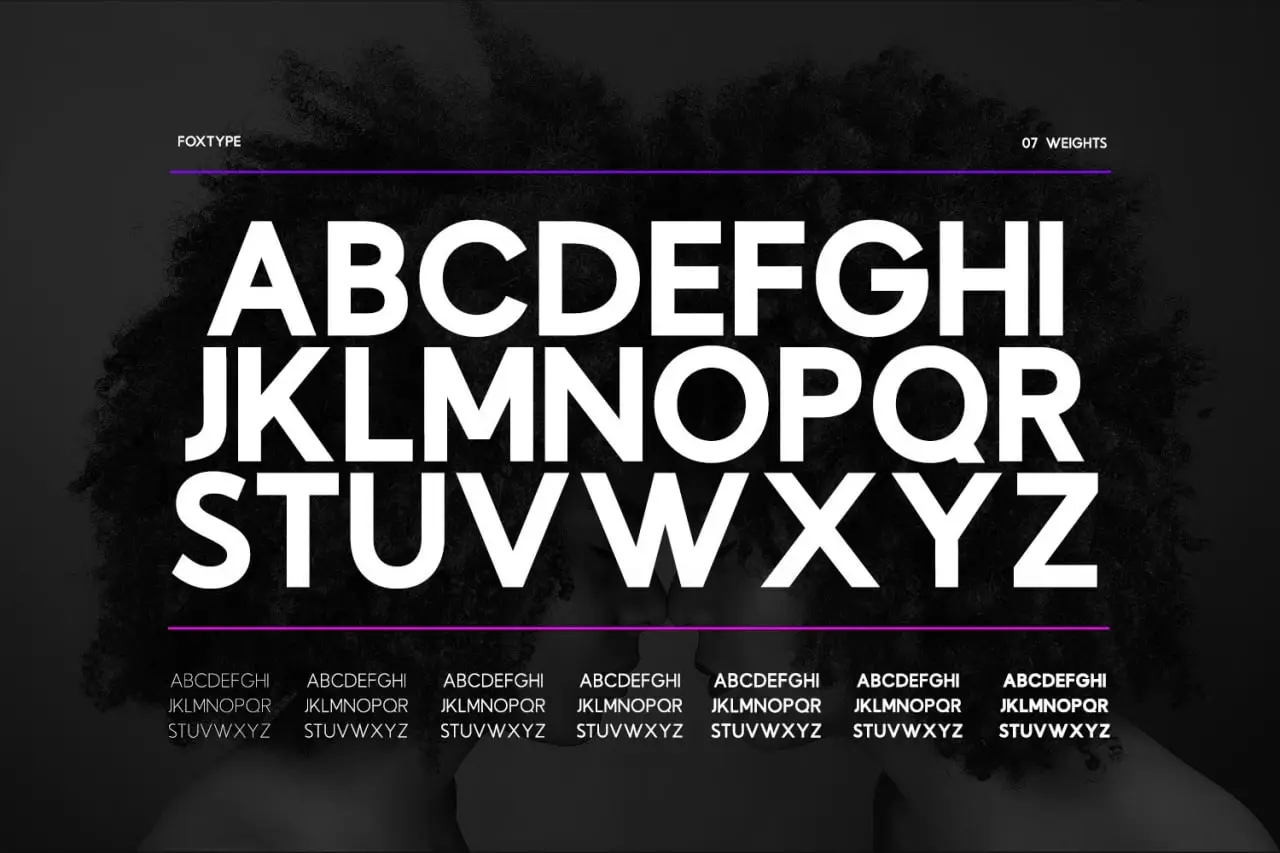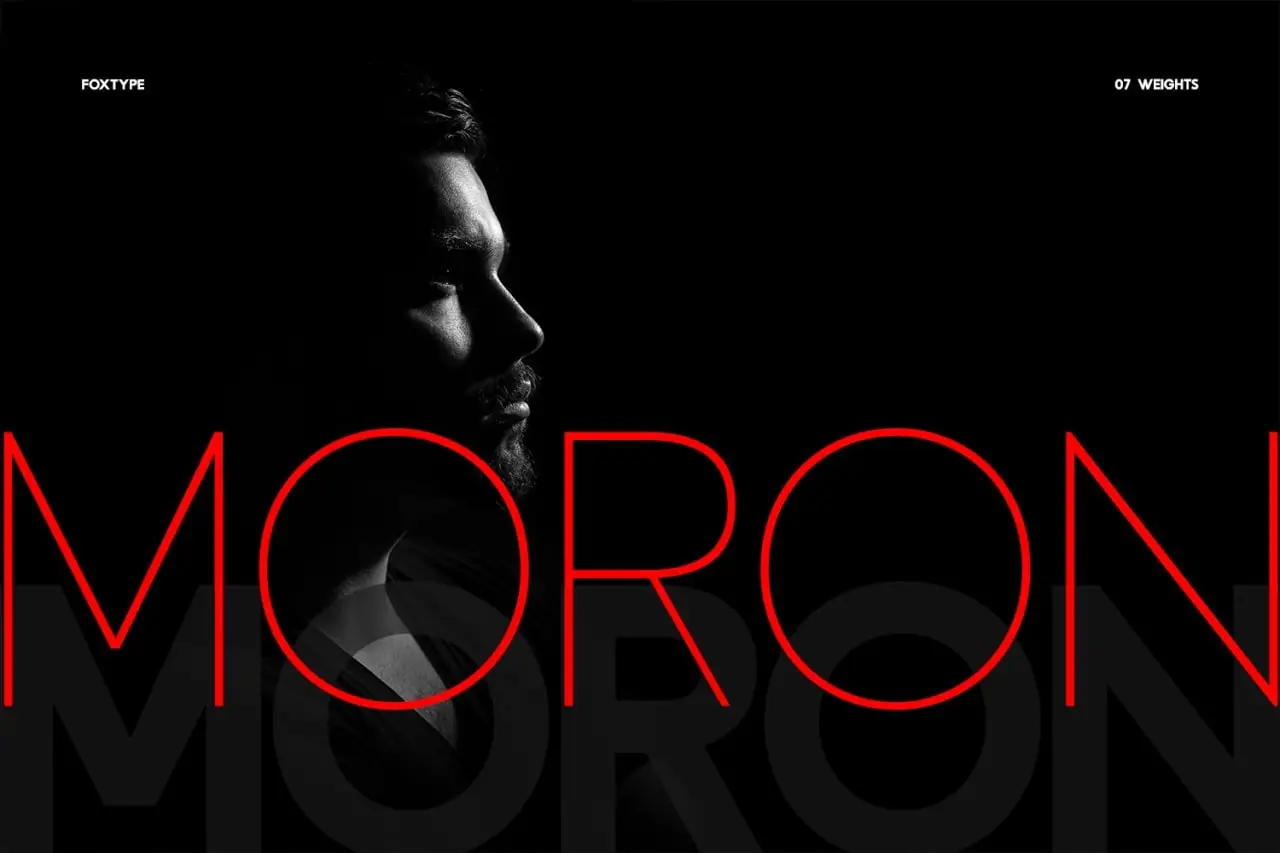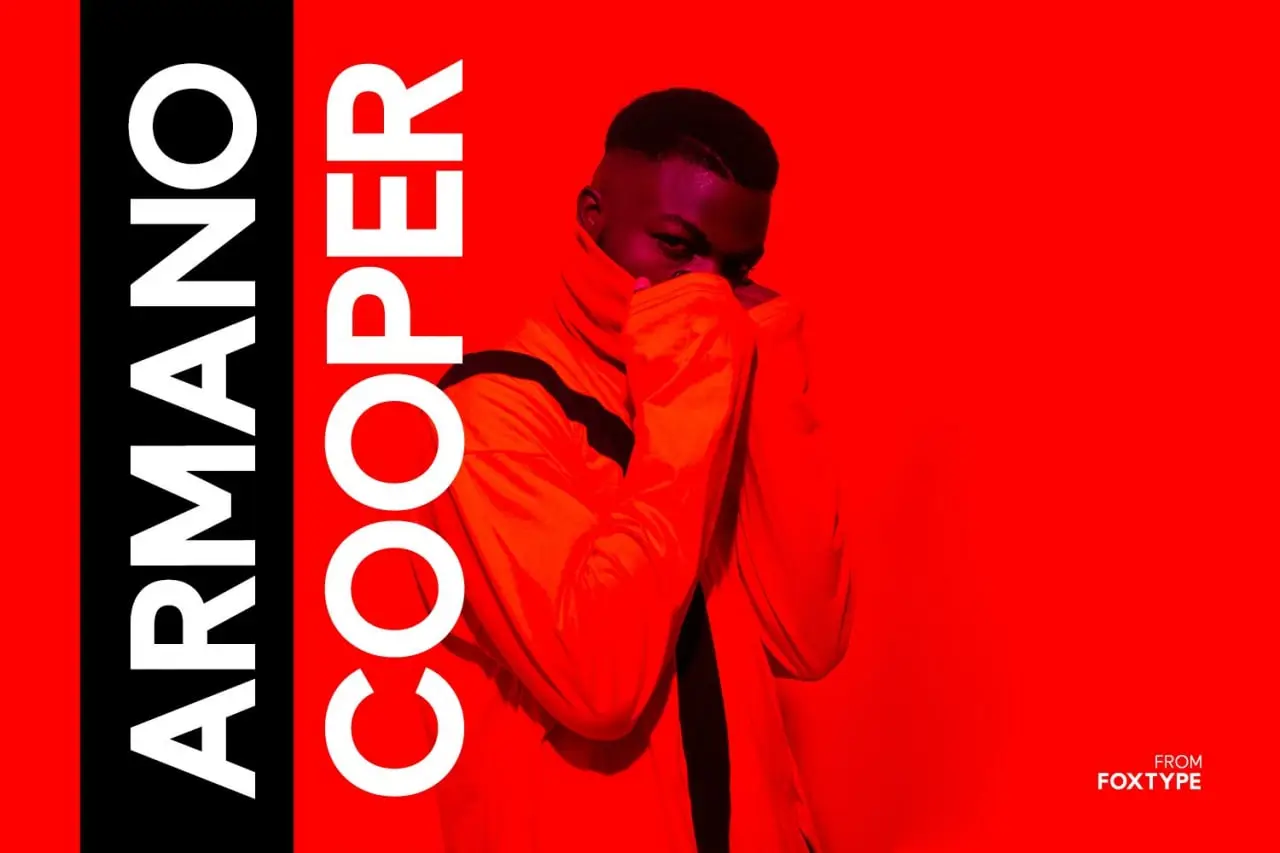
Olive Display Typeface
The Olive Display Typeface is a beautifully crafted font designed to make a statement in any project. With its elegant curves and distinct character, this typeface is perfect for branding, logos, and eye-catching headlines.
• Ideal for print materials like posters and brochures.
• Great for digital applications including websites and social media graphics.
• Use in branding projects to create a memorable visual identity.